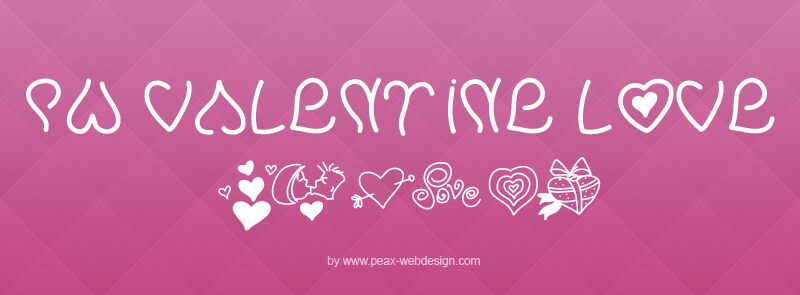
PW Valentine Love by Peax Webdesign is a free Valentine's display font with buoyant, hand-drawn letterforms. Its rounded strokes shift in width, and several letters curl into heart-like silhouettes that make affection part of the alphabet itself.
It is strongest on Valentine's Day cards, where the oversized curves can carry the main greeting. The same sweet, informal drawing suits candy packaging and party invitations. Its wrapped-heart motif fits gift tags and romantic event graphics built around courtship and presents.